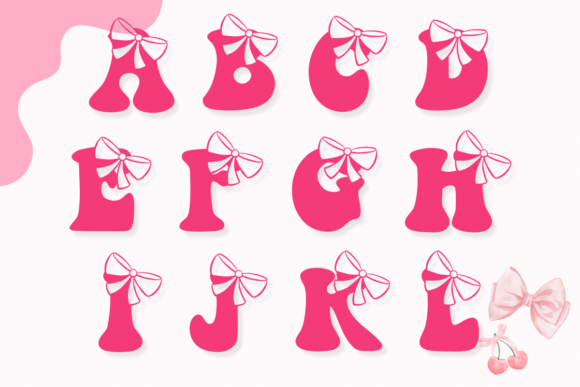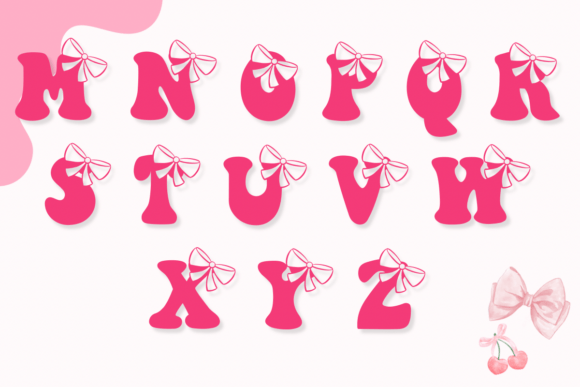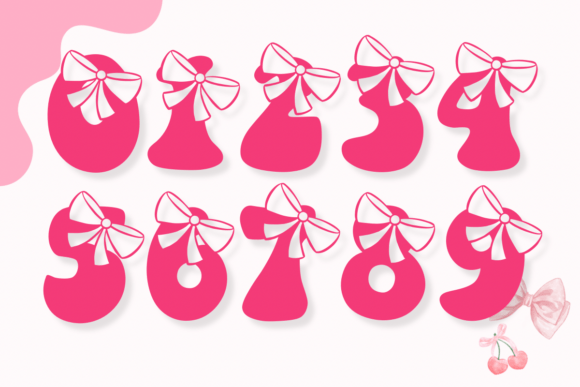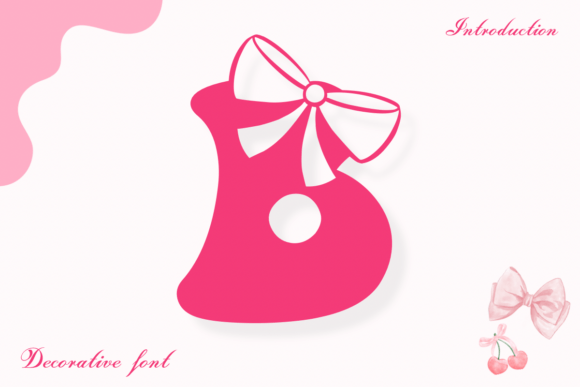
Introduction to Groovy Cute Bow Font
Groovy Cute Bow is a decorative font that combines retro flair with sweet femininity.
Featuring playful shapes and adorable bow elements, it’s the perfect pick for fashion branding, girly logos, and whimsical crafts .